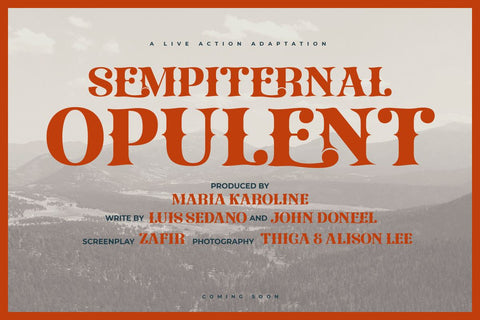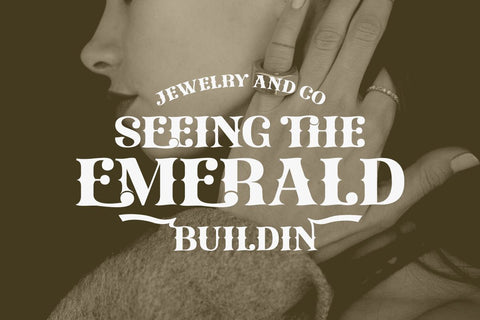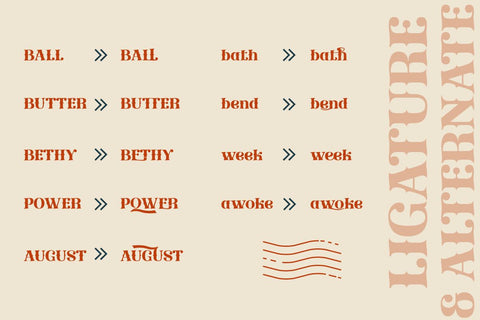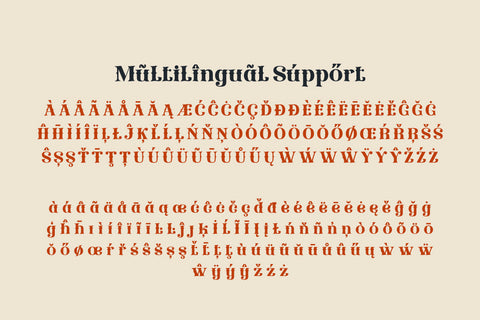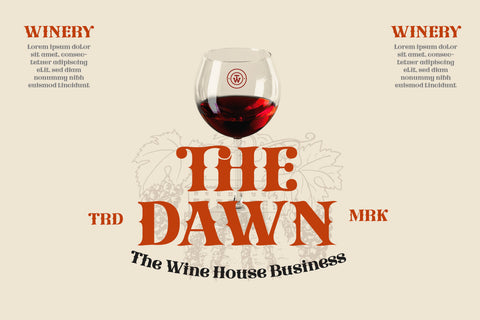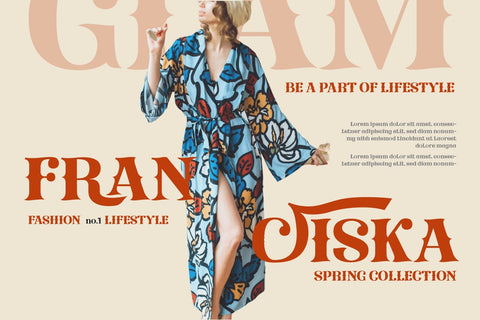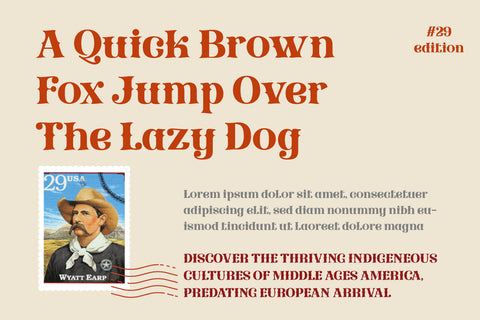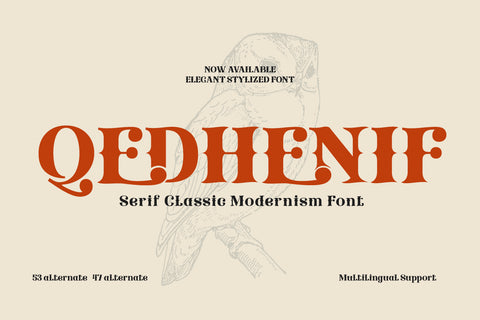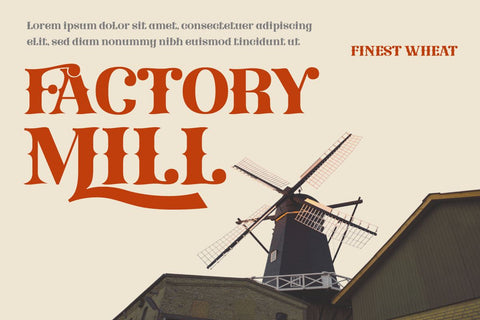
Qedhenif – Serif Classic Modernism Font
Qedhenif is a Serif Classic Modernism Font that boasts a retro classic style. With its sleek and sophisticated design, this font is perfect for creating a vintage look that’s both elegant and timeless. Its OpenType features include 53 stylish alternates and 47 beautiful ligatures, making it versatile and suitable for a variety of special projects.
Whether you’re working on a branding project, packaging design, or editorial layout, Qedhenif’s alternate characters and ligatures add a touch of personality to your designs. And with its multilingual support, you can use this font for projects in different languages, reaching a wider audience. Explore the possibilities of Qedhenif and elevate your designs to the next level.
- Alternate, Ligature